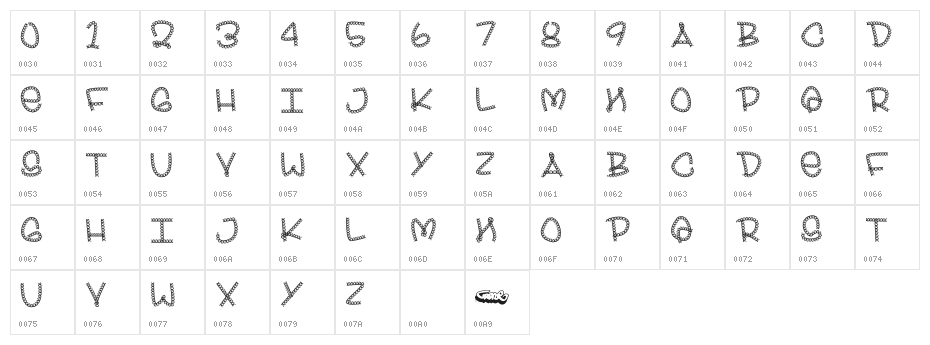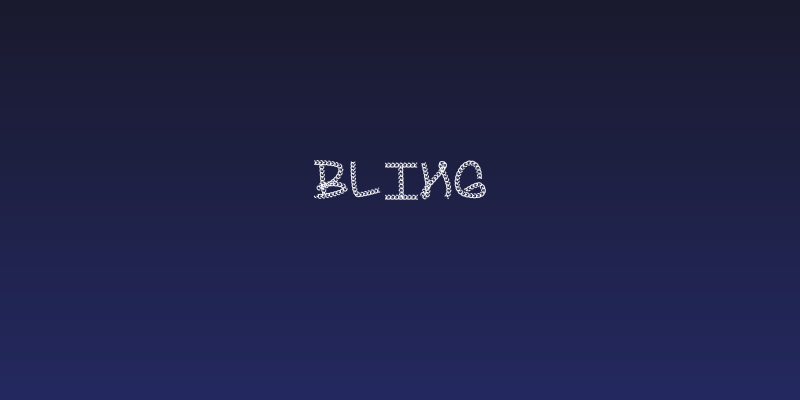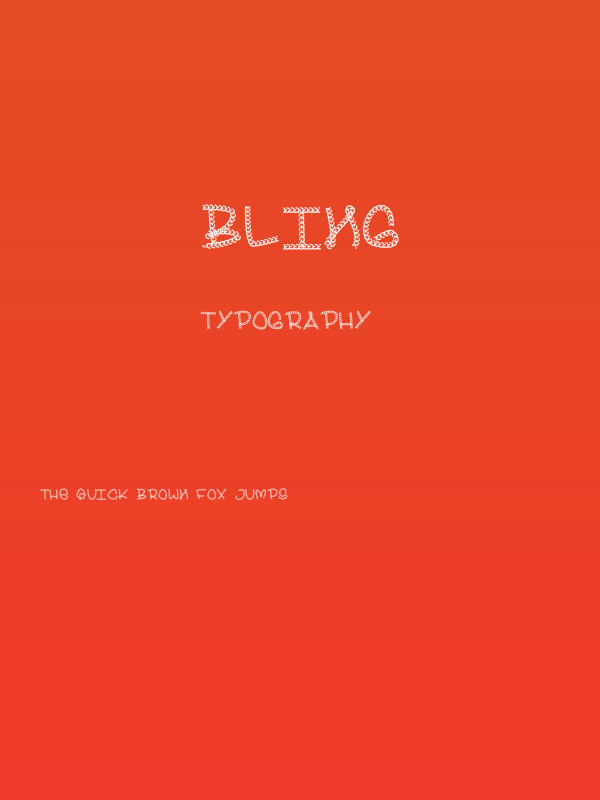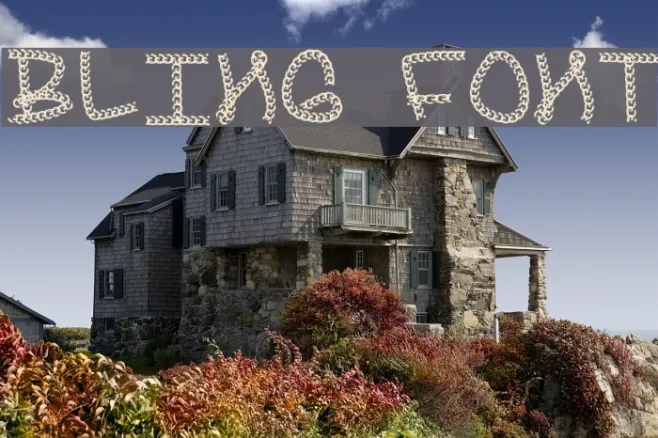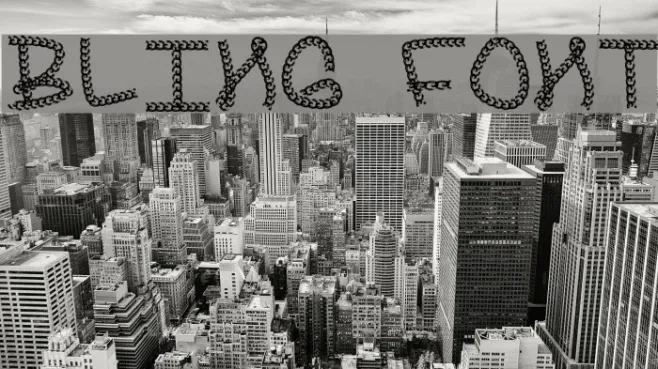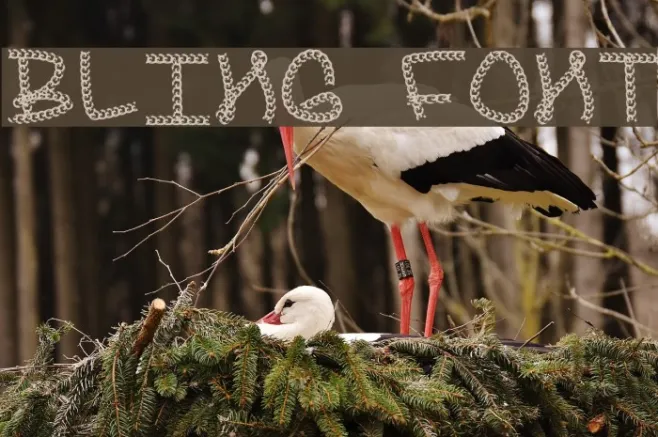
BLING Font
BLING Description
This font features a unique and decorative style, characterized by its intricate chain-like pattern that forms each letter and number. The design is bold and eye-catching, making it ideal for projects that require a standout visual element. Each character is crafted with a consistent pattern, creating a cohesive look across the entire set. The font's playful and ornate nature makes it suitable for creative and artistic applications, where a touch of flair is desired. Its detailed design may not be suitable for small text sizes but excels in larger formats where the intricate details can be appreciated.
| Proposed Projects | Ideal for posters, album covers, event invitations, and branding materials that require a bold and artistic touch. |